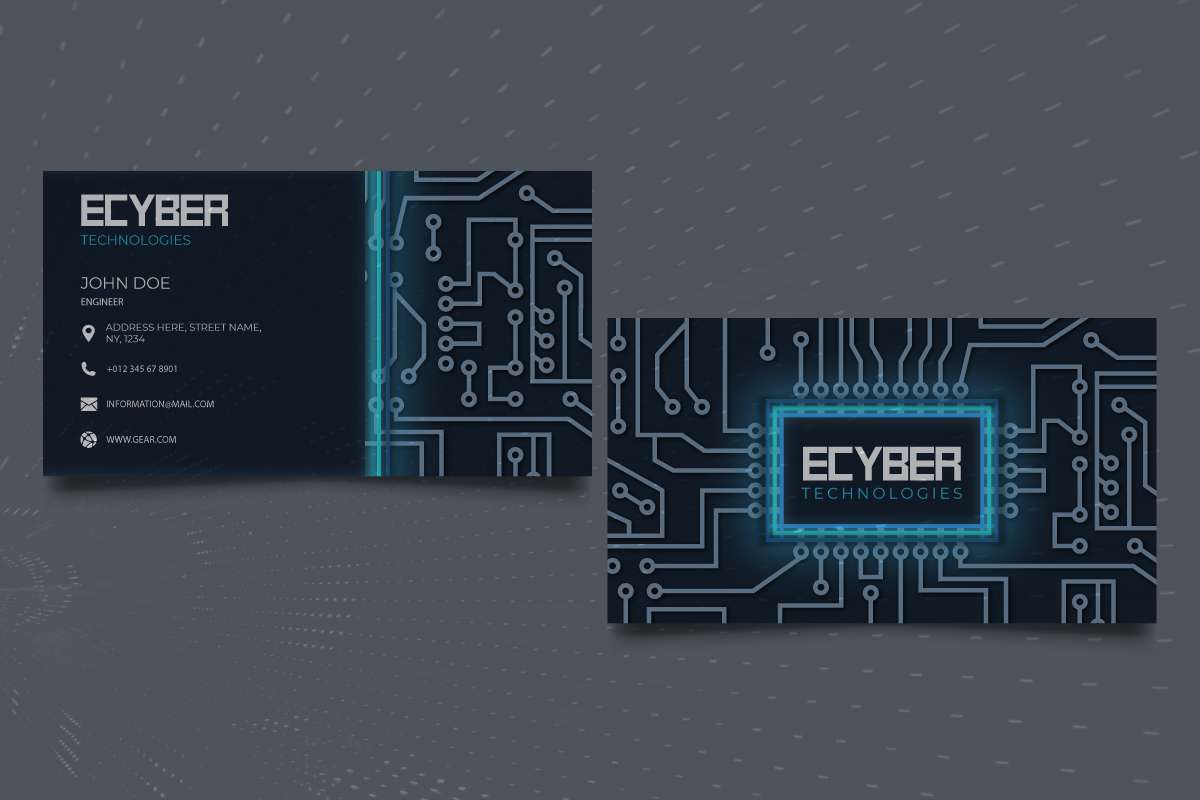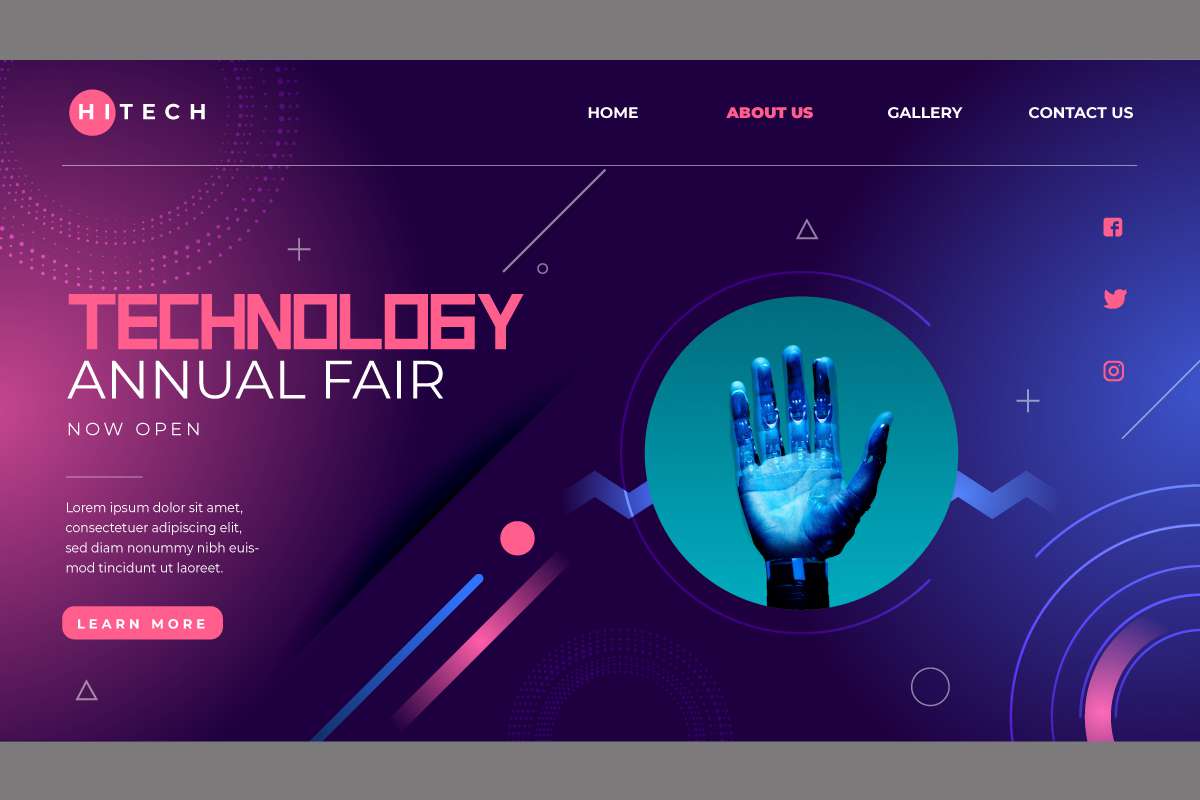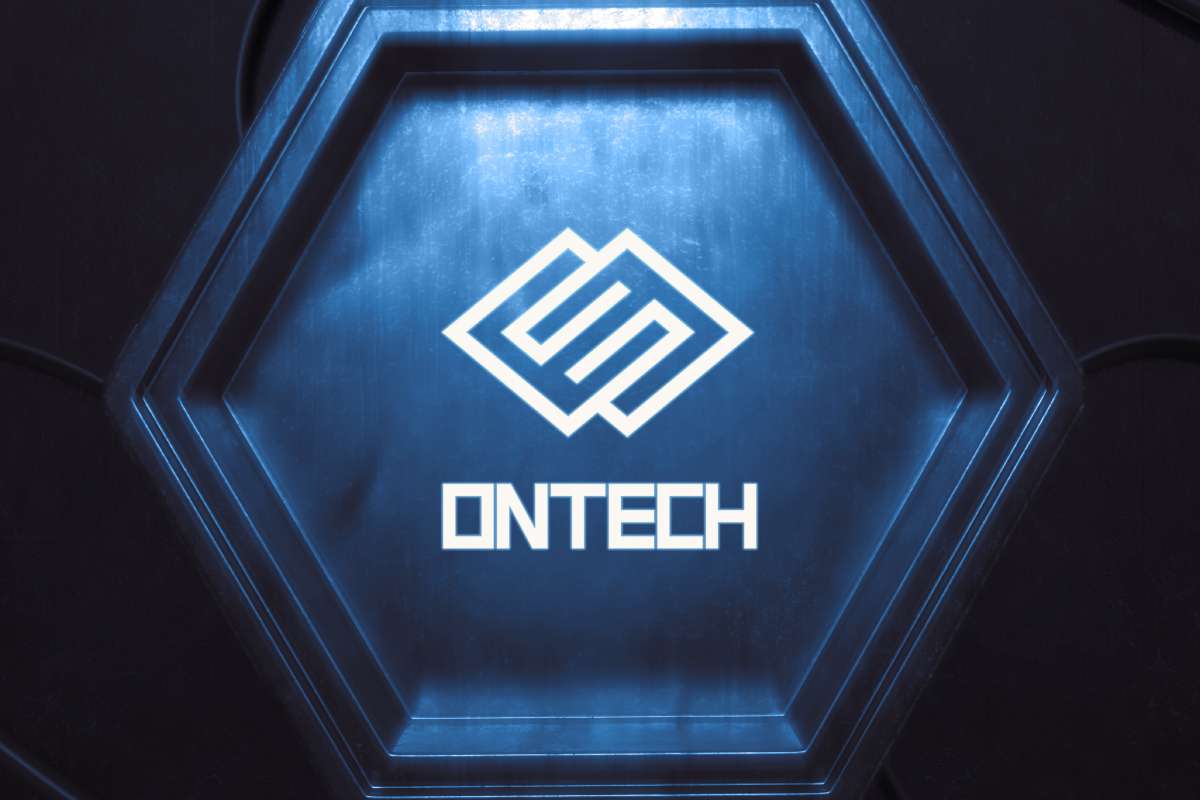
Grandness Font
Grandness Display Font
This font is designed by RaisProject team in Indonesia. The font is great for any your projects including : advertising, branding, magazine, signage, stationery and any projects that need unique minimal style. The industries for this font is Automotive, Apps, Technology, Game, Magazine, Sports etc